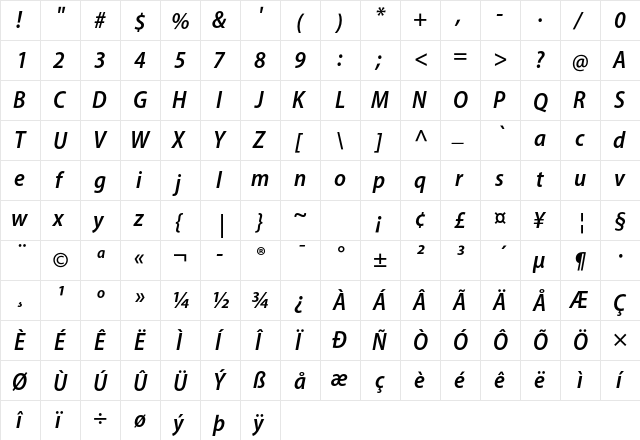
Myriad Pro Semibold SemiCondensed Italic Font Preview
| Designer | Robert Slimbach and Carol Twombly |
Design Context for Myriad Pro Typeface
Myriad Pro takes a measured approach to typography — its balanced proportions and neutral character make it a reliable workhorse for both digital and print work. Its italic angle brings a sense of urgency and motion to the letterforms. The heavy weight commands attention and anchors typographic hierarchies. The condensed width makes it efficient for tight spaces without sacrificing legibility.
Pro Tip: Try Myriad Pro for annotation and caption copy alongside an upright companion — the contrast in angle creates a dynamic but ordered typographic system.